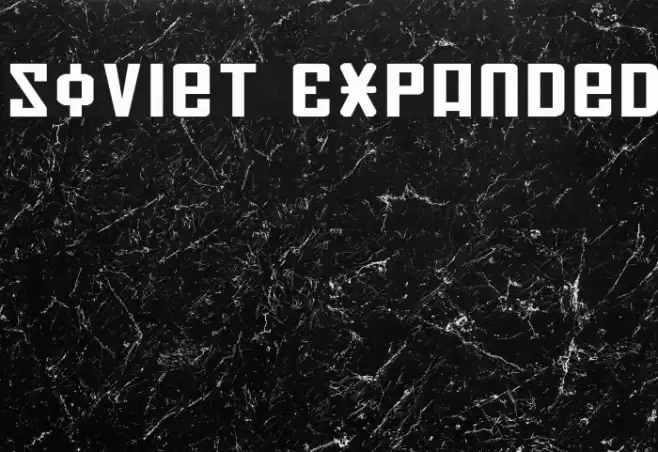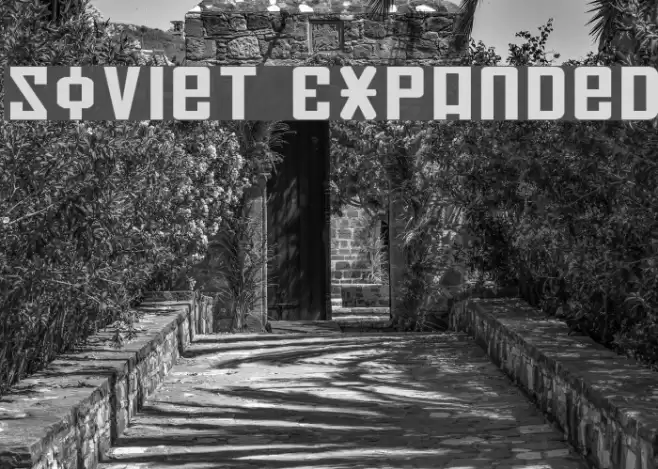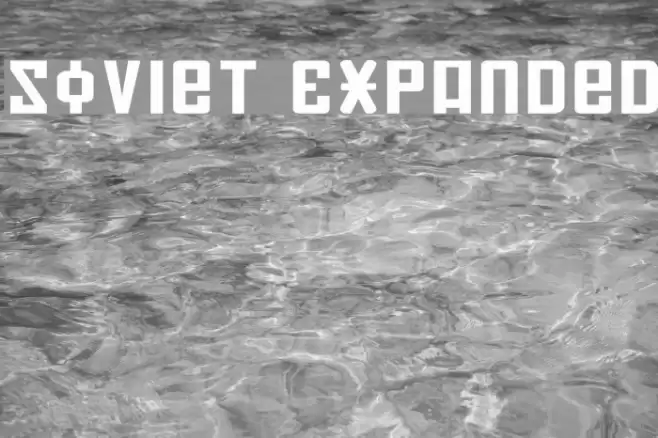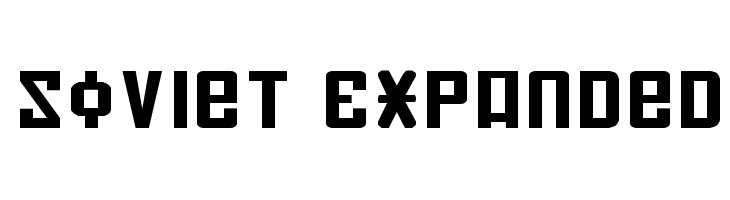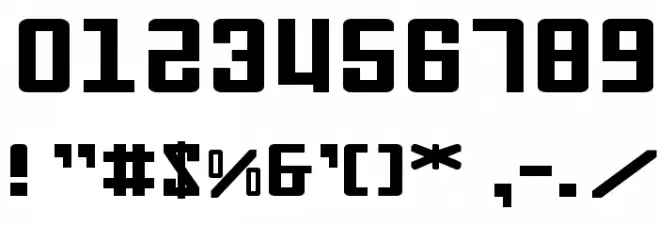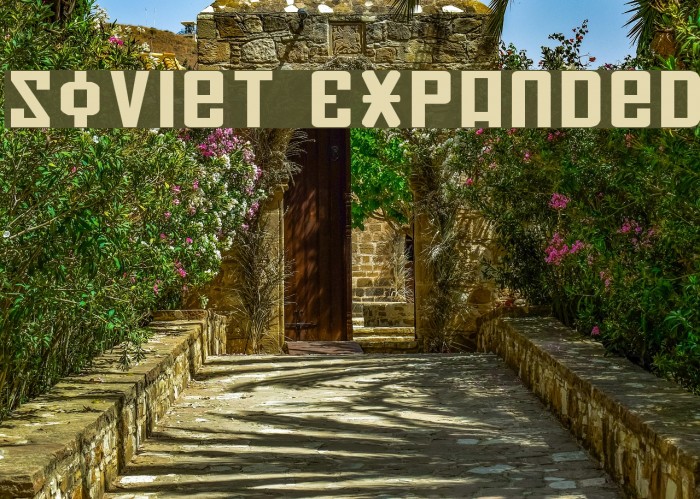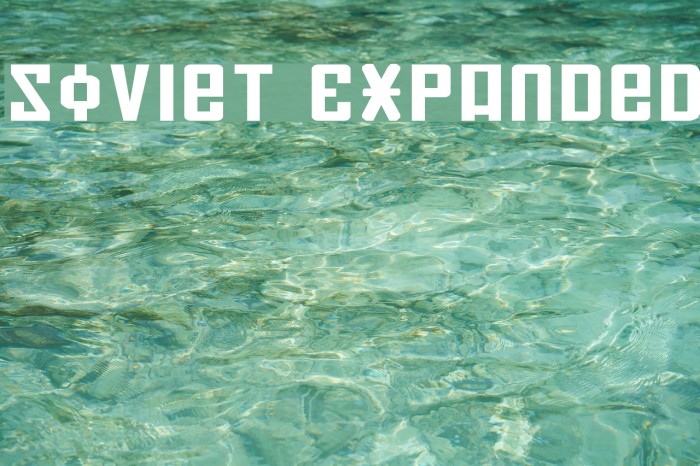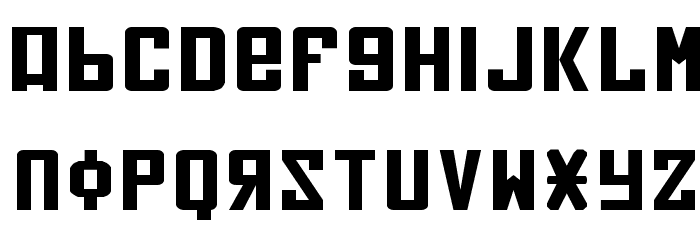
Soviet Expanded Font
Soviet Expanded Description
This font features a bold, geometric design with a distinctly industrial feel. The characters are blocky and angular, reminiscent of Soviet-era typography, with a strong emphasis on horizontal and vertical lines. The uppercase letters are particularly striking, with unique shapes that give the font a futuristic and mechanical appearance. The lowercase letters maintain the same structural integrity, ensuring consistency across the typeface. Numbers and special characters are designed with the same boldness, making them stand out effectively. The overall style is both retro and modern, suitable for projects that require a strong visual impact.
A bold, geometric font with an industrial, Soviet-era aesthetic from Uncategorized fonts.
- Proposed Projects: Ideal for posters, branding, and any design work that requires a bold, impactful typeface with a retro-futuristic vibe.
- Overall Style: Retro-Futuristic